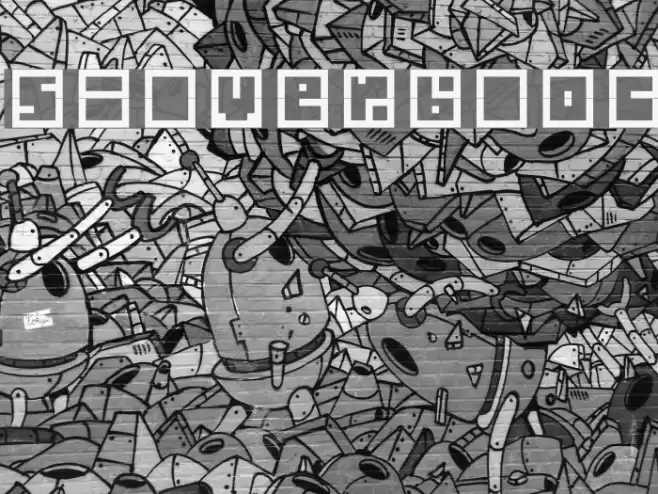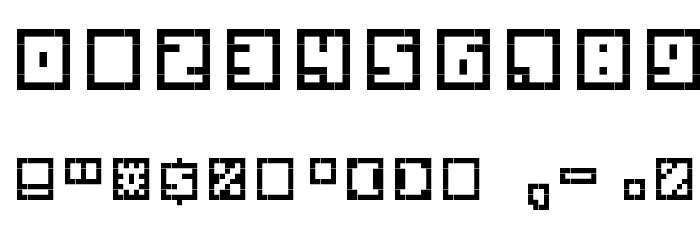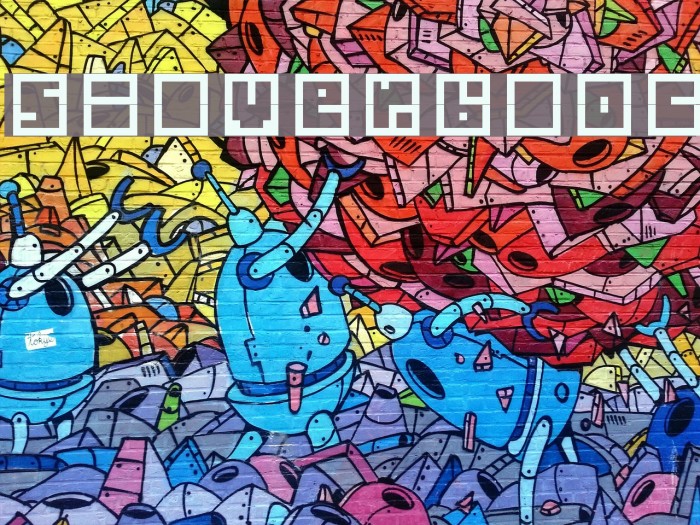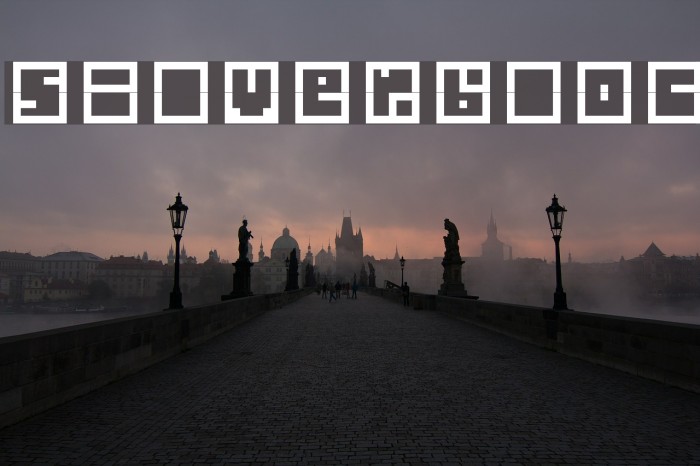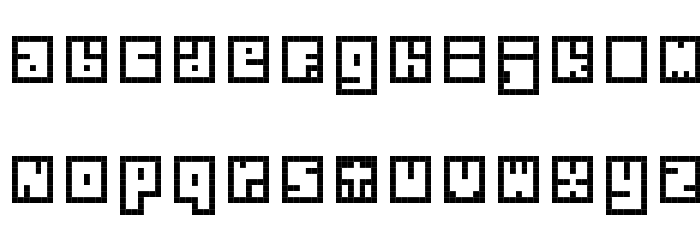
Silverbloc Font
Silverbloc Description
This font features a bold, blocky design with a pixelated aesthetic reminiscent of early digital displays or retro video games. Each character is constructed with a uniform grid-like pattern, giving it a distinct, geometric appearance. The uppercase and lowercase letters maintain a consistent height, contributing to a cohesive look. The numbers and special characters follow the same pixelated style, ensuring uniformity across all glyphs. This font's unique style makes it stand out, ideal for projects that require a digital or retro theme.
A bold, pixelated font with a retro digital aesthetic from Uncategorized fonts.
- Proposed Projects: Ideal for video game design, digital art projects, retro-themed posters, and tech-related branding.
- Overall Style: Retro, Digital